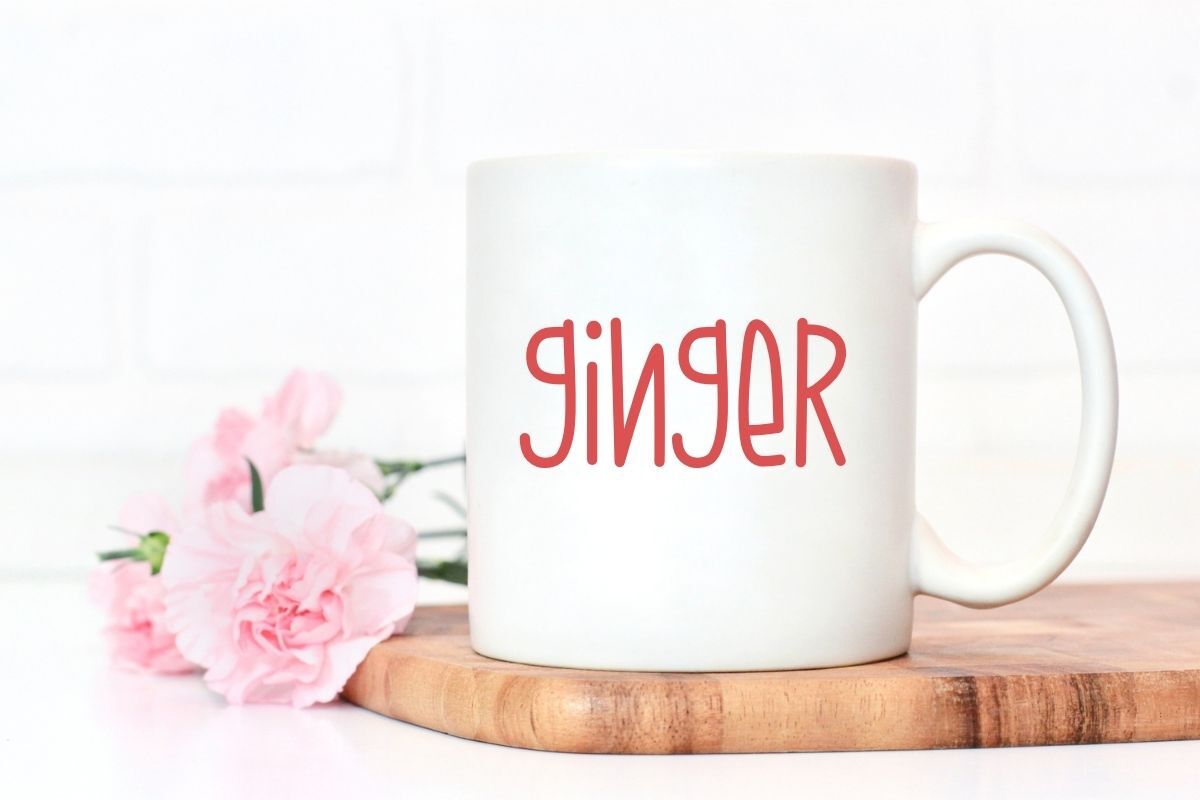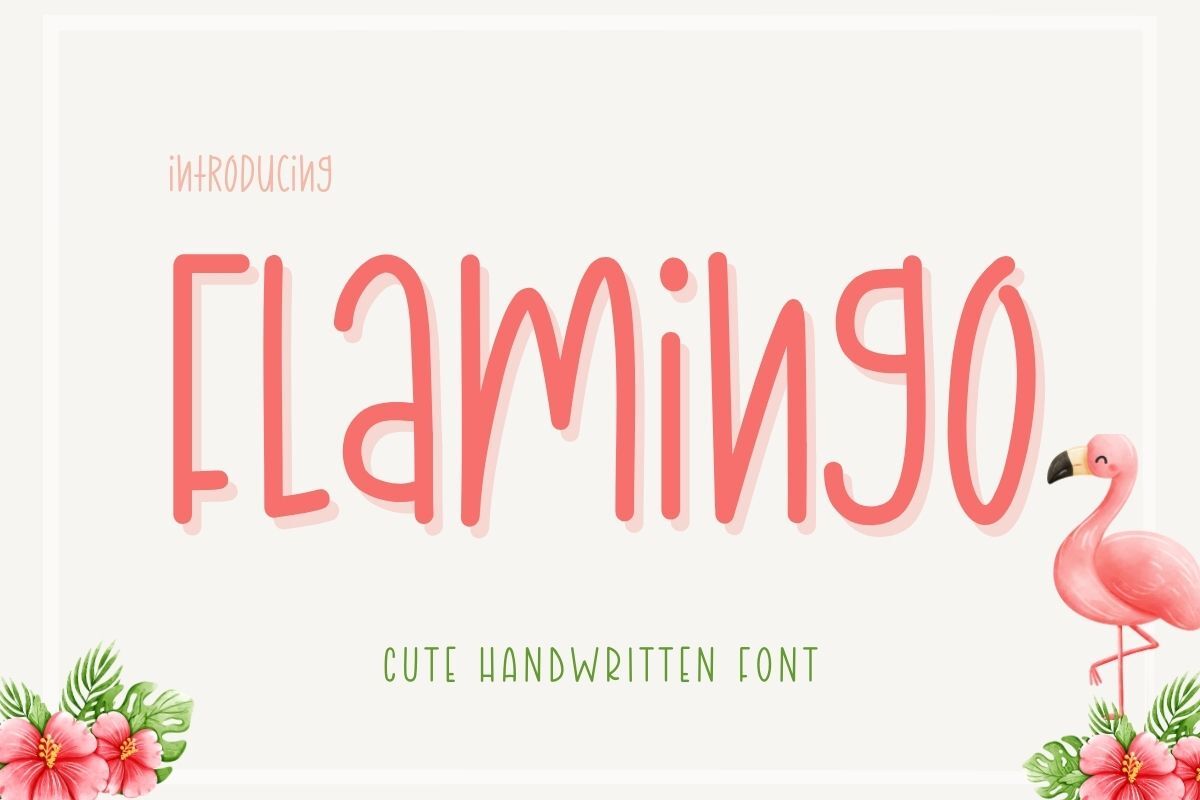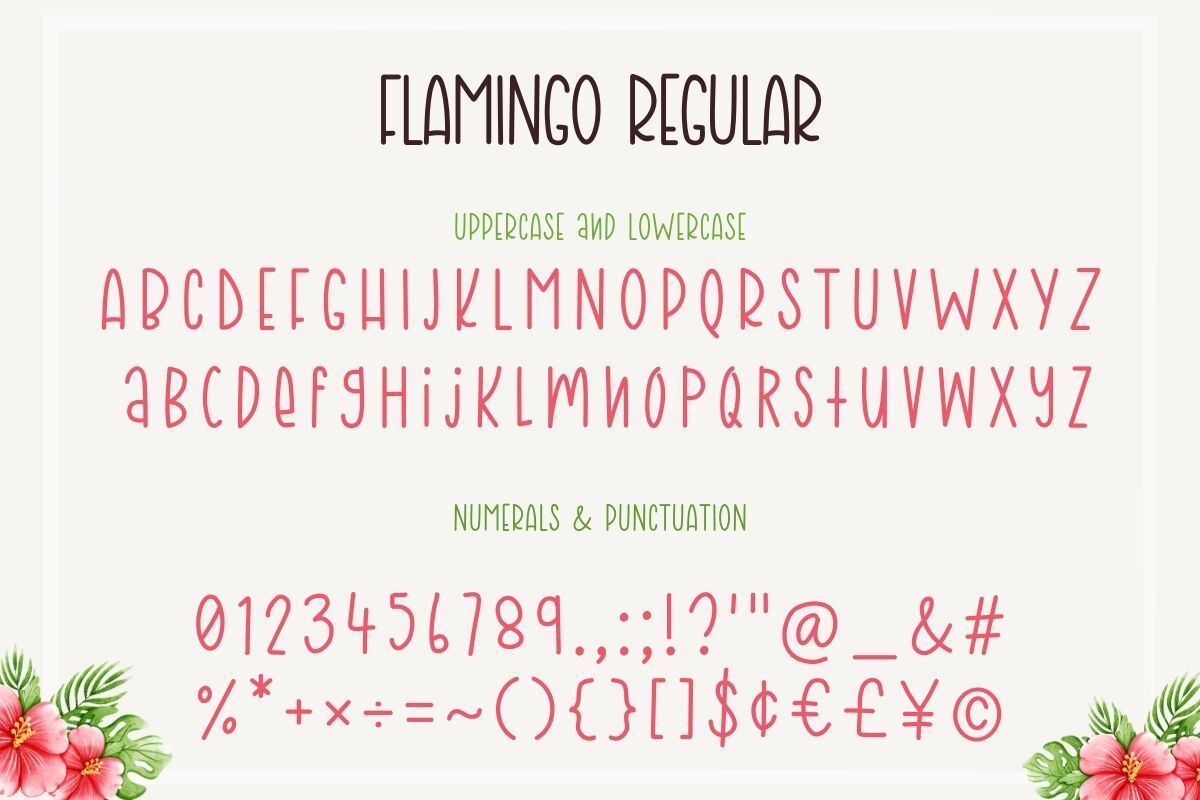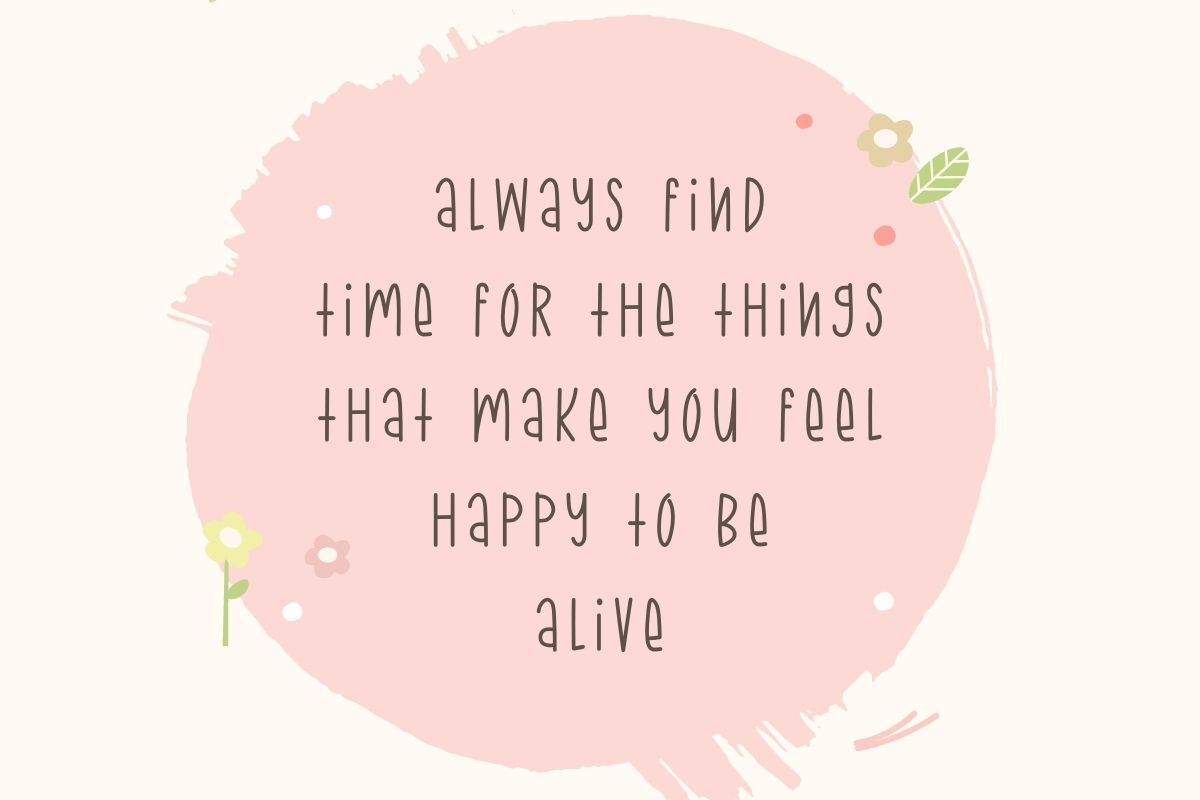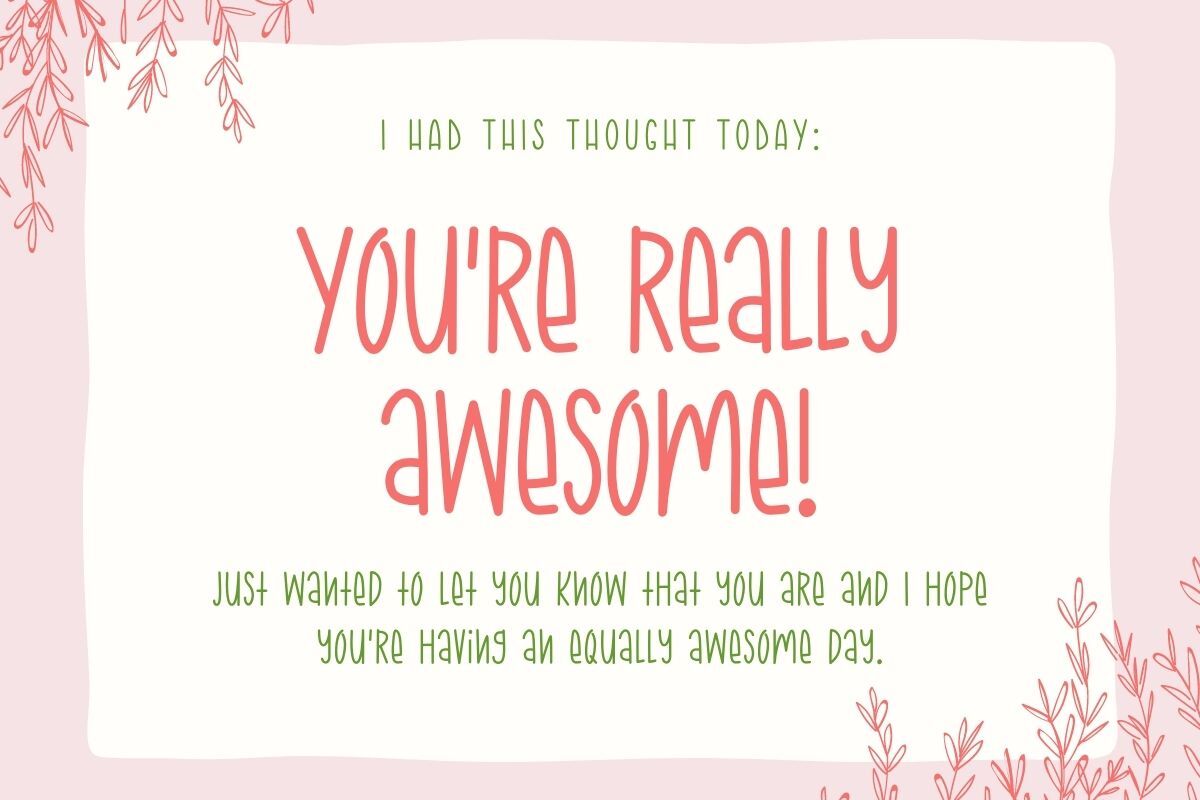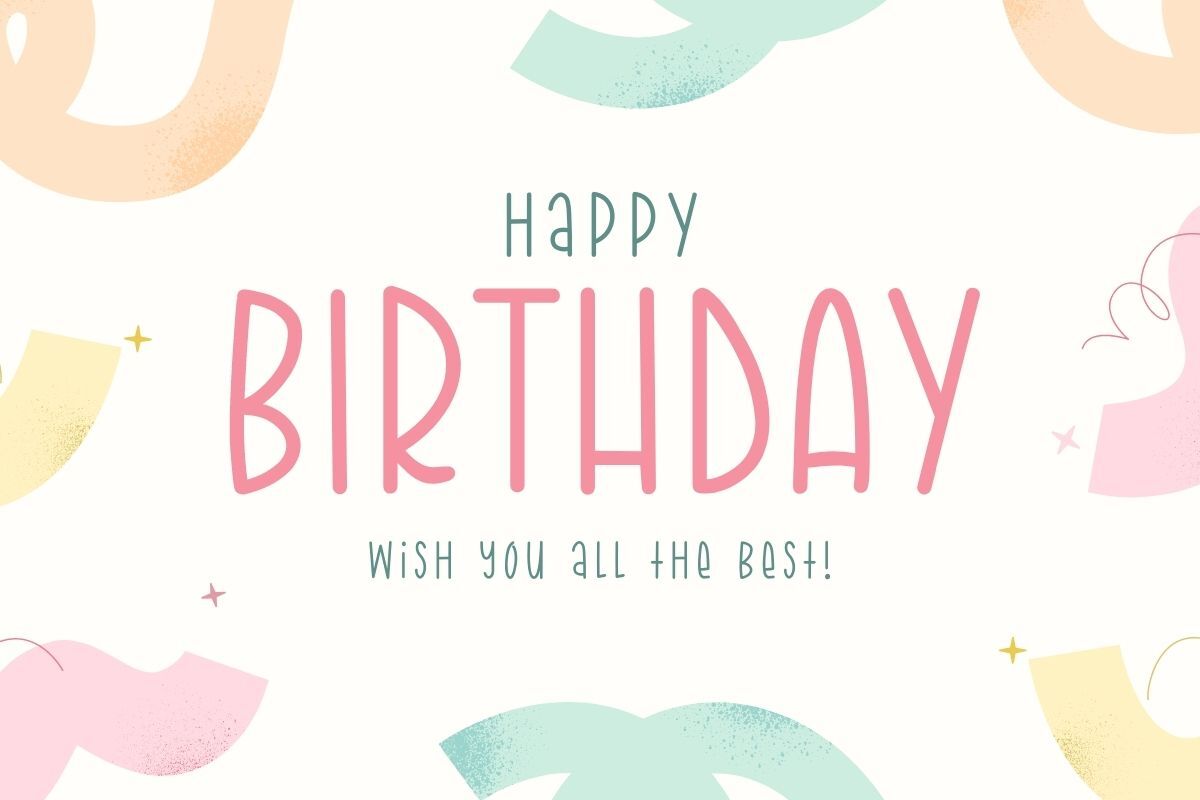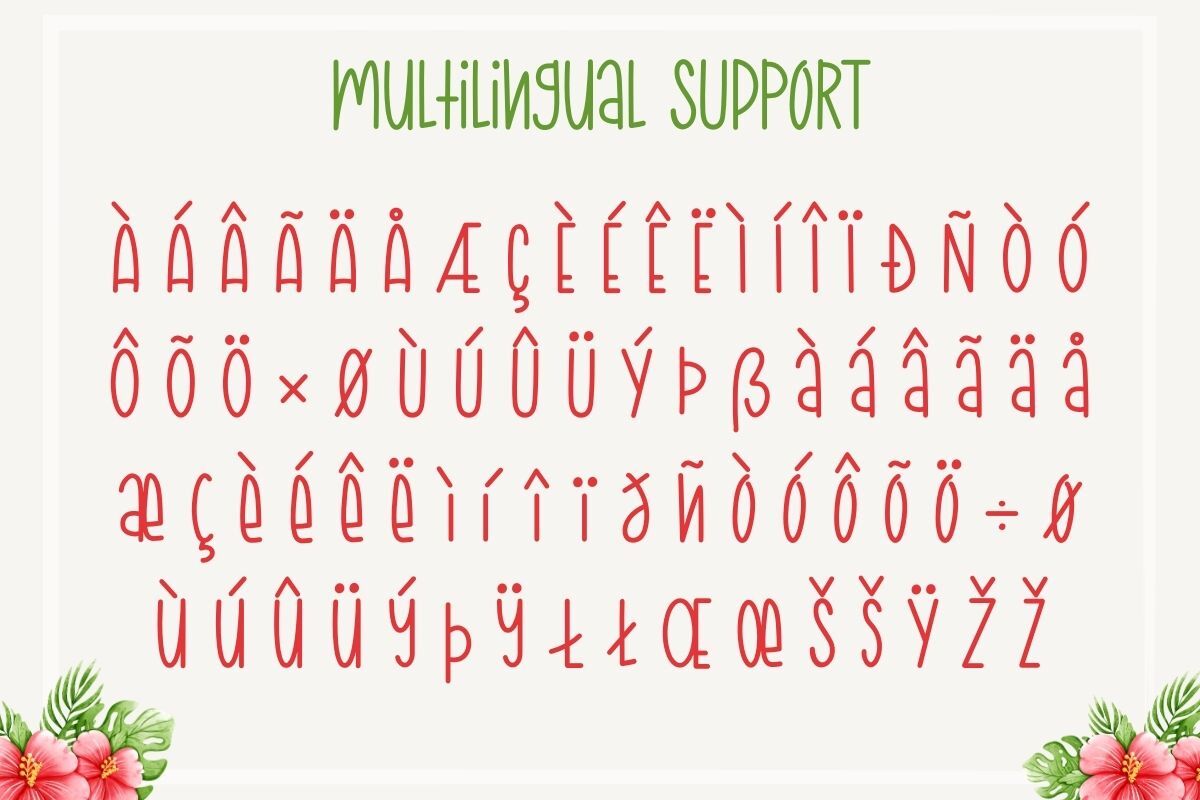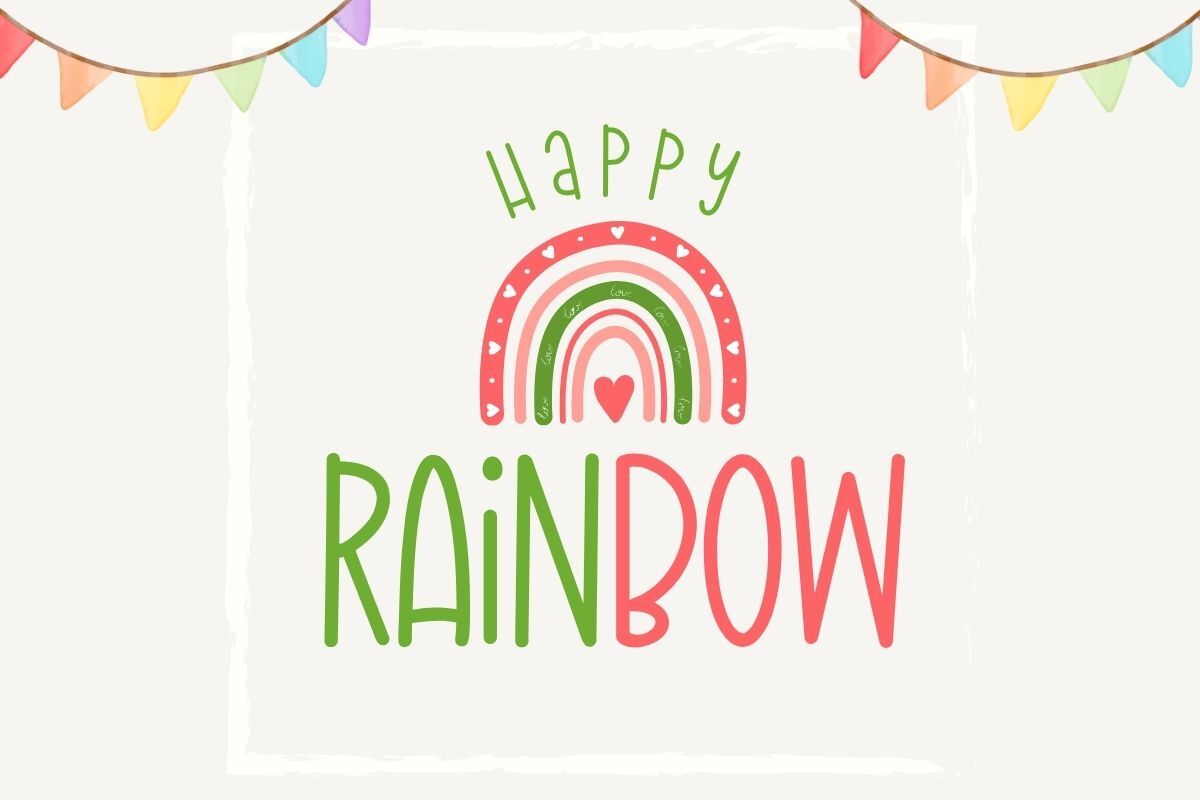
Flamingo - Handwriting Font
Flamingo is a lovely Handwritten Font. Perfect for creating a wide variety of new designs to match products such as banners, content, mugs, cards, shirts, stationery, social media posts, and more! **You will receive 3 Files: -.ttf file 1 file. -.otf file 1 file. -woff file 1 file. Please make sure the program/software you are using accepts otf, ttf font files.